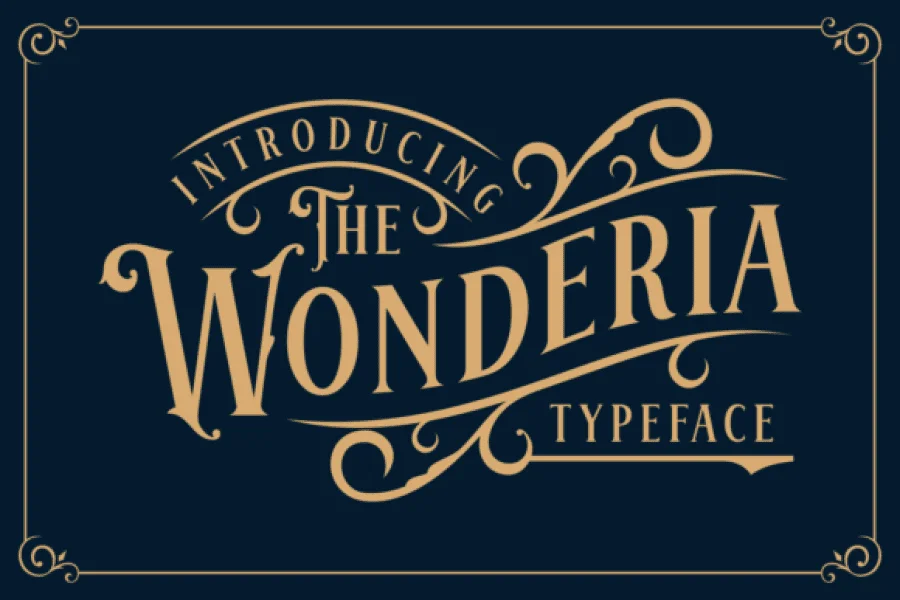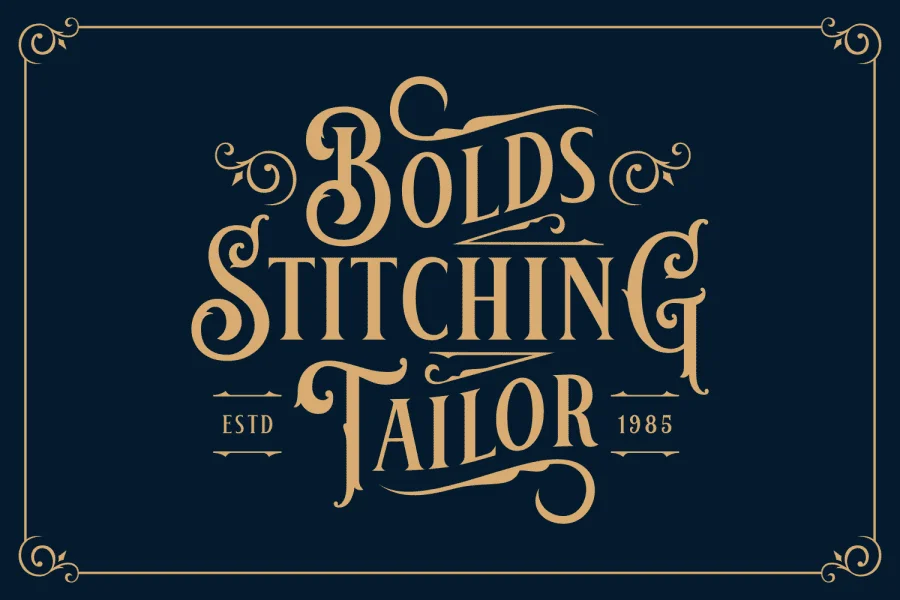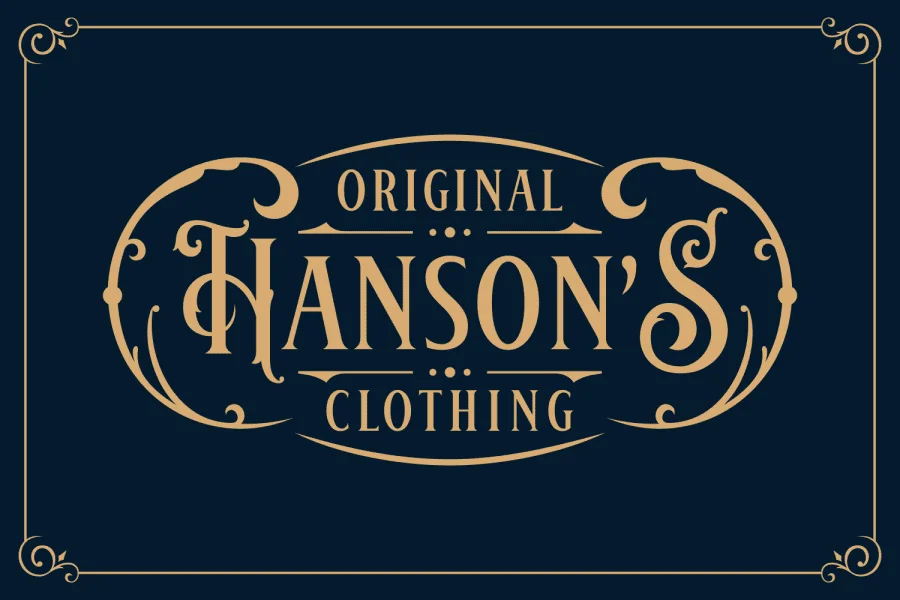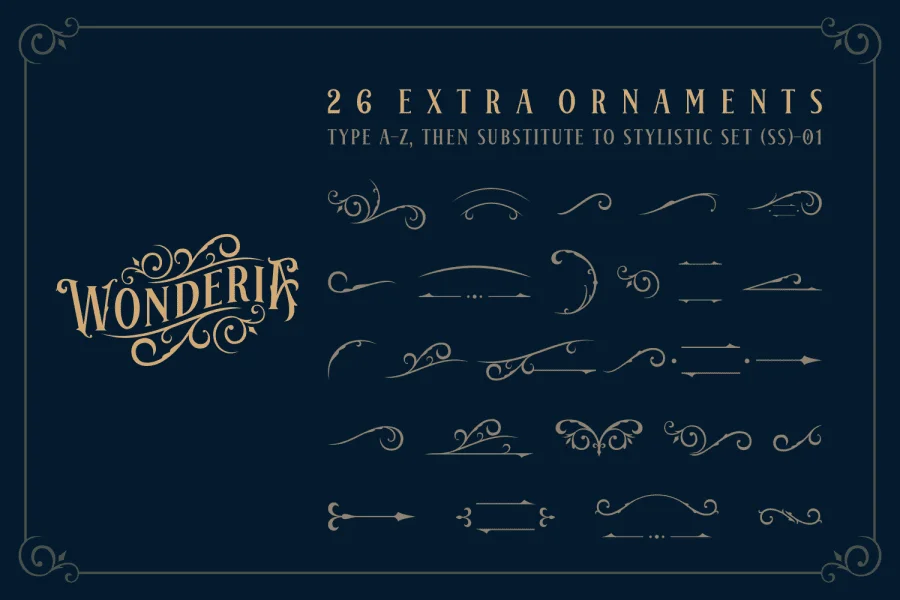
The Wonderia is a whimsical display font. It has a striking look and a great readability. It includes beautiful swashes and design elements which can be used to give your design that little bit of extra.